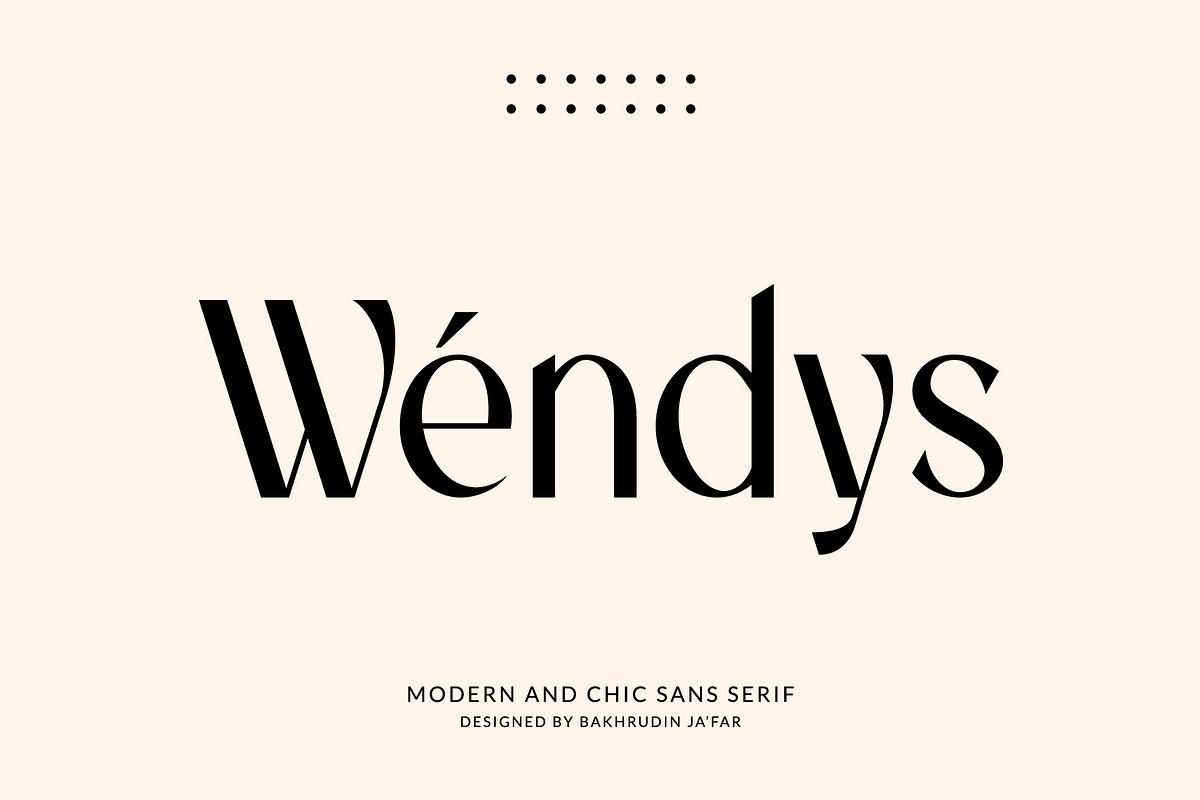
Wendys - Modern and Chic Sans Serif Font Free Download is a sleek and stylish typeface crafted for elegance and clarity. With its clean lines, contemporary shapes, and subtle sophistication, this font is ideal for branding, editorial design, website headers, fashion labels, and upscale packaging.
Whether you're designing for a luxury boutique, a minimalist portfolio, or modern lifestyle content, Wendys offers versatility without sacrificing style. Its well-balanced characters bring a polished and professional look to any project, while the refined simplicity keeps your visuals fresh and timeless.